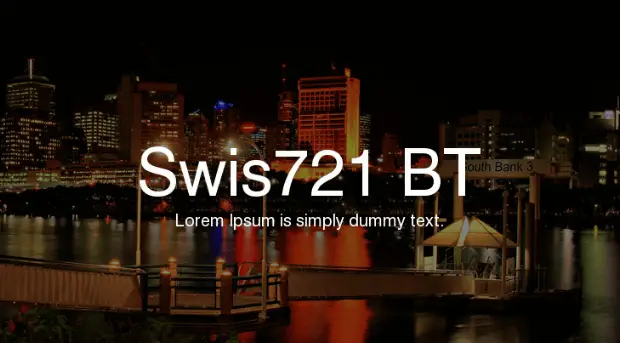
Swiss bt font, a sans serif font, boasts a broad spectrum of styles ranging from thin to bold. Designing sans serif fonts is typically a challenging task. This font type is widely utilized in the publication industry and headlines, as well as for navigational text on compact screens.
Swiss 721™ is a sans serif family that stages in variety from skinny to black at the same time mixing in a few unexpected, however beautifully made and ironically flattering, define weights that spice up the grotesque design.
Design Of Swiss Bt Font
Swiss 721 takes the essence of mid-twentieth century sans serif typefaces and melds it with ultra-modern design consistency and a scientific weight variety.
OpenType® fonts of Swiss 721 additionally advantage from a wealthy character set and a range glyphs aiding most Western European and lots of Japanese European languages.
Corporate Typeface is versatile loved ones of weights and proportions excellent to a huge style of print and interactive design tasks and is equally at home as headlines on billboards as it’s navigation content material on small monitors.